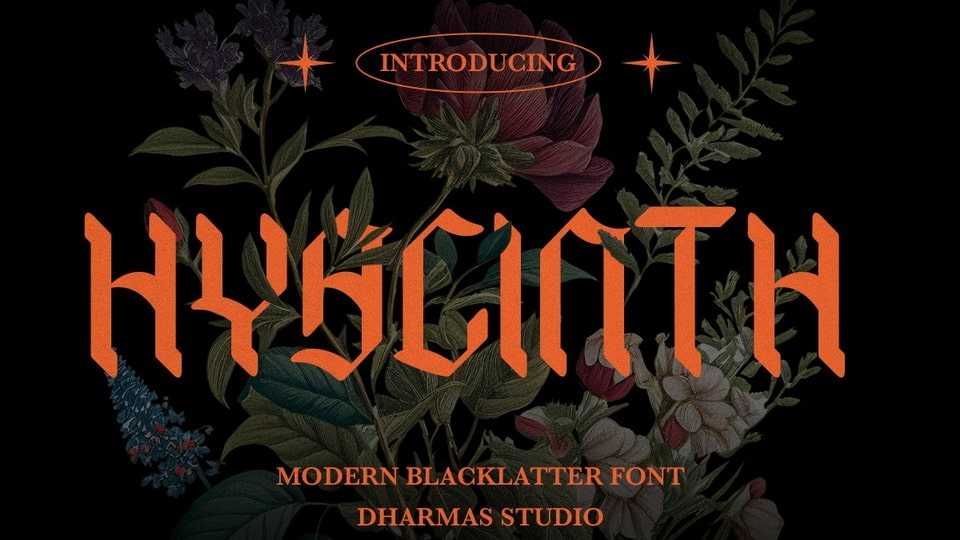
Download Hyacinth font, a modern blackletter typeface with a touch-rounded style. With an elegant modern style, it adds a bold touch to your projects.